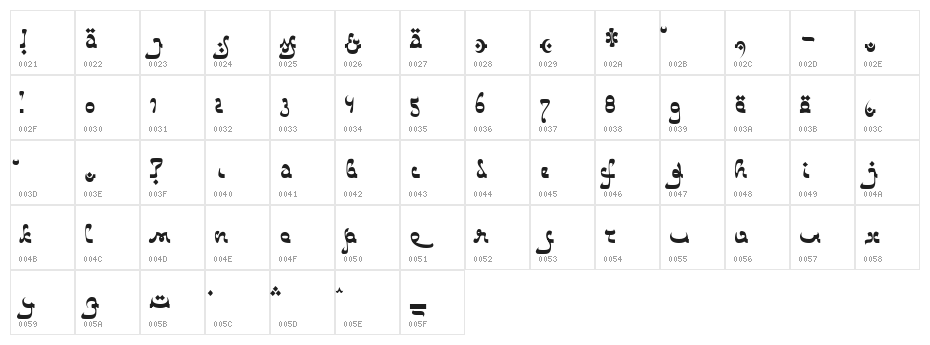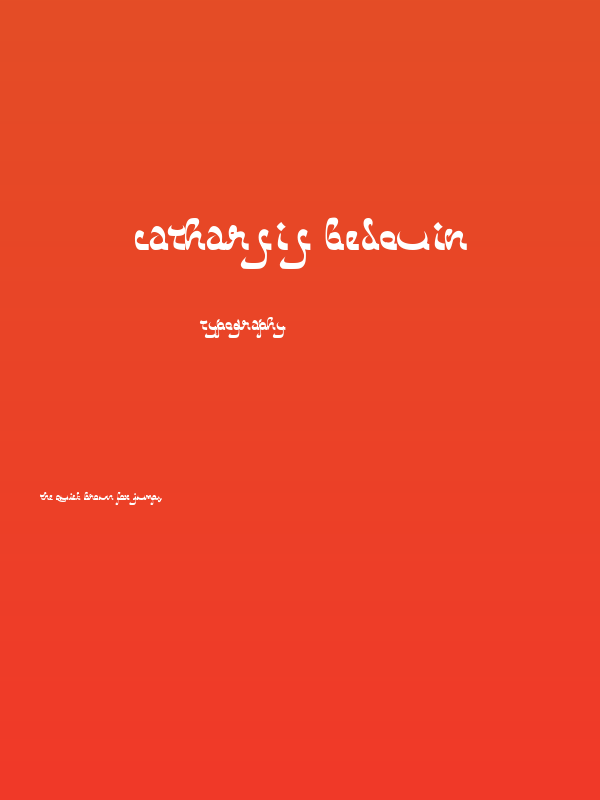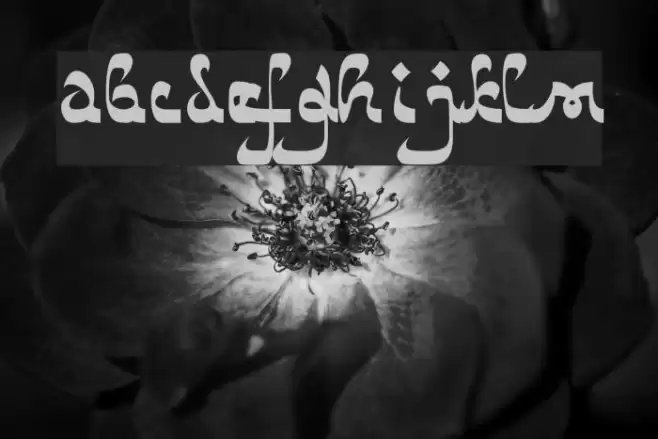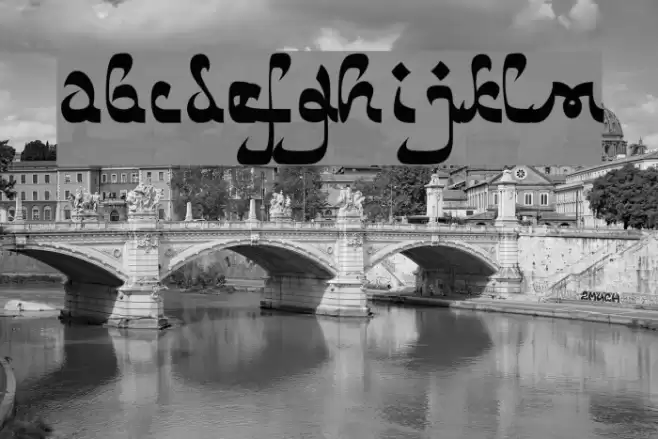
Catharsis Bedouin Font
Catharsis Bedouin Description
This font features a unique and artistic design that combines elements of both modern and traditional styles. The characters are crafted with flowing, curved lines that give a sense of movement and fluidity. Each letter has a distinct, almost calligraphic appearance, with varying stroke thickness that adds depth and interest. The overall look is both elegant and bold, making it suitable for creative and expressive projects. The numbers and special characters maintain the same stylistic approach, ensuring consistency across all elements.
| Use Case | Logos, Headlines, Artistic projects |
| Proposed Projects | Ideal for artistic projects, branding, logos, and decorative headings. |